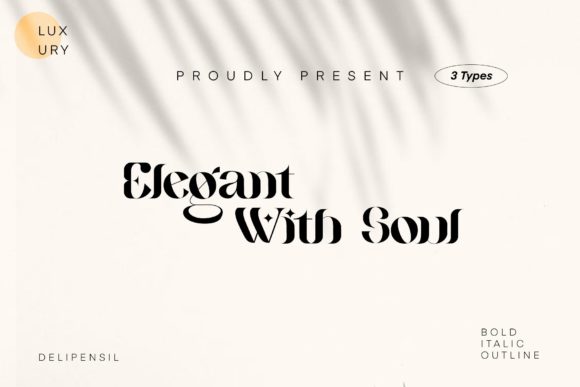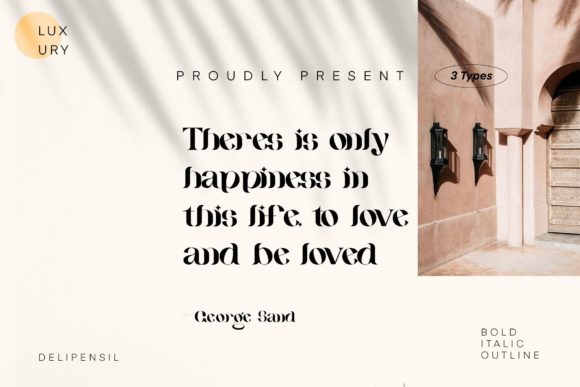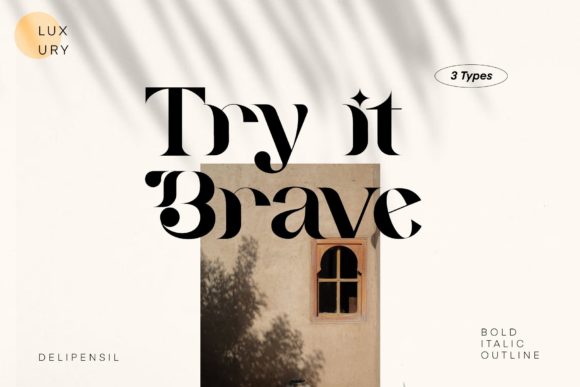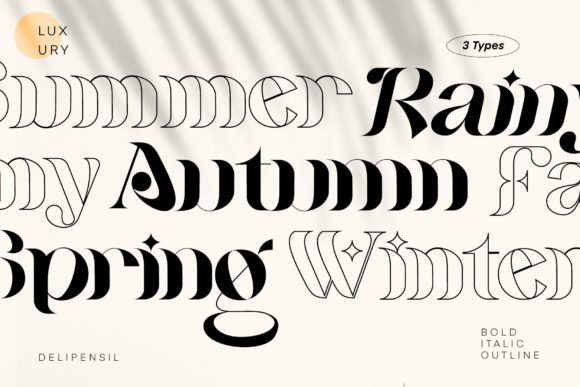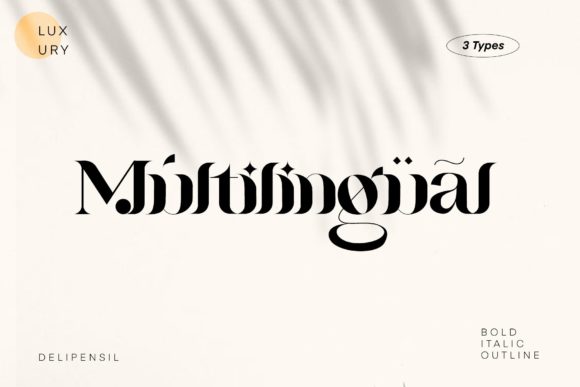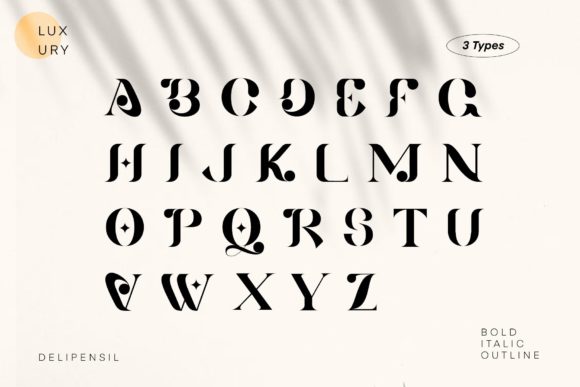
Discover the Timeless Elegance of Billqo Font
Have you ever been working on a project, pouring your heart and soul into the design, only to feel like something is missing? That’s where the perfect font can make all the difference. It’s like adding the final touch to a beautiful painting – it brings everything together and elevates the entire piece. For designers, finding the right font can be a challenge, but what if I told you that I’ve discovered a game-changer?
Meet Billqo Font, a luxurious and modern serif font that exudes strength, confidence, and dynamism. This font is not just a pretty face; it’s designed to add a touch of nostalgia to your designs, making them truly unforgettable. Whether you’re working on a branding project, a magazine cover, or a website, Billqo Font is the perfect addition to your toolkit.
What sets Billqo Font apart is its ability to add a sense of sophistication and elegance to any design. Its versatility makes it a valuable asset for designers of all levels, from beginners to seasoned pros. With Billqo Font, you can create designs that truly stand out from the crowd and leave a lasting impression on your audience.
Key Features of Billqo Font
- Unique Characteristics: Billqo Font features a unique blend of modern and vintage elements, with intricate details and ornate flourishes that set it apart from other fonts.
- Language Support: Billqo Font supports a wide range of languages, including Latin, Cyrillic, and Greek, making it a versatile choice for global design projects.
- Font Style: The font comes in two styles: Regular and Bold, providing designers with flexibility to create contrast and emphasis in their designs.
Designer Review: Billqo Font
First off, I want to say that the Billqo Font has some great qualities that make it stand out ✨. The font is modern, sleek, and perfect for creating eye-catching headlines and titles. The designer has done a great job of balancing aesthetics with readability, making it a versatile font that can be used in a variety of contexts.
- The font’s bold weights are particularly well-done, adding a level of sophistication and professionalism to any design.
- The variable font format allows for a high degree of customization, making it easy to adapt the font to specific design needs.
- The font’s open type features are also a great touch, adding an extra layer of polish to any design.
However, I do have a few concerns about the font’s limitations ⚠️. The font’s light weights can sometimes feel a bit too light, making it difficult to read in certain contexts. Additionally, the font’s italic styles can feel a bit inconsistent, which may be jarring for some users.
Overall, I would say that the Billqo Font is a solid choice for designers looking for a modern, sleek font. While it’s not perfect, it’s definitely worth considering for any design project.
Tips for Getting the Most Out of Billqo Font
To get the most out of Billqo Font, try the following:
- Combine Billqo Font with other fonts to create a unique and modern look.
- Use Billqo Font in bold or italic styles to add emphasis to your text.
Common Use Cases for Billqo Font
Billqo Font is perfect for:
- Choose a soft, pastel color scheme to complement the font’s playful nature.
- Use Billqo Font for the invitation’s title and a few select phrases to add a touch of elegance.
- Combine with watercolor illustrations or hand-drawn elements to create a dreamy atmosphere.
Tip: Pair Billqo Font with a classic serif font, like Times New Roman, for a balanced and sophisticated look.
Project 2: Retro-Style Food Truck Menu Boards
Give your food truck menu boards a funky, retro vibe with Billqo Font.
To use Billqo Font in this project:
Tip: Use Billqo Font in conjunction with a clean, sans-serif font, like Helvetica, for easy readability.
Project 3: Steampunk-Inspired Book Covers
Create captivating book covers that transport readers to a steampunk world with Billqo Font.
To use Billqo Font in this project: